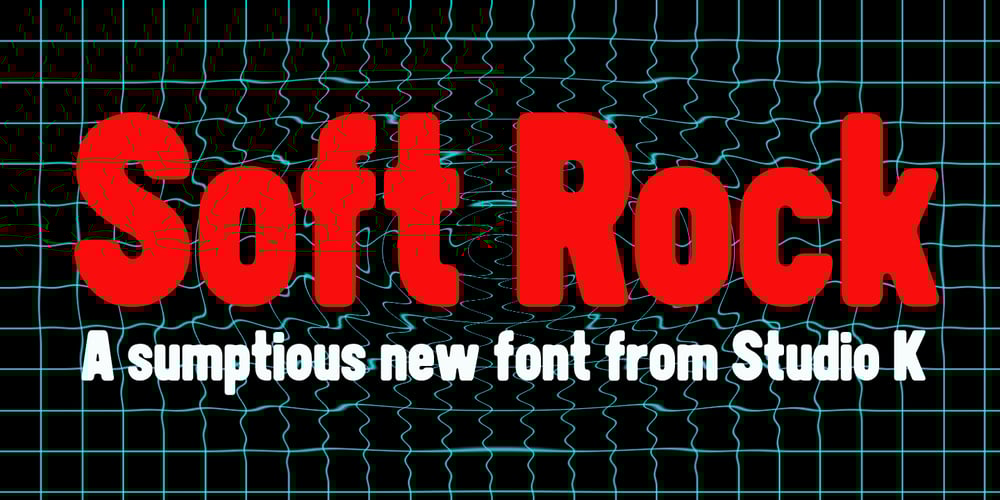
Soft Rock
Soft Rock font
Soft Rock Font Family was designed by Keith Tricker and published by Studio K. Soft Rock contains 2 styles and family package options. Soft Rock is a bold condensed sans serif with rounded contours that contrives to be gentle and dynamic at the same time: rather like the soft rock bands (Chicago, Air Supply, Fleetwood Mac etc) after which it is named. It’s a warm, friendly font ideal for branding everything from soup to soft furnishings.